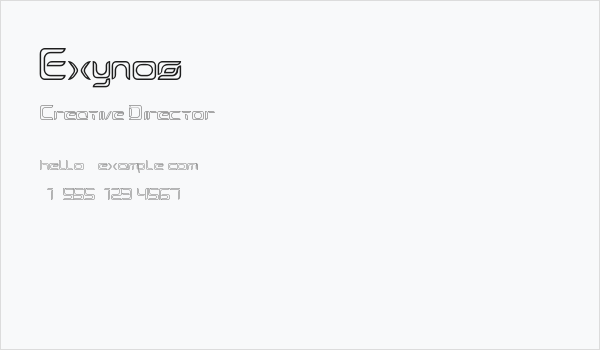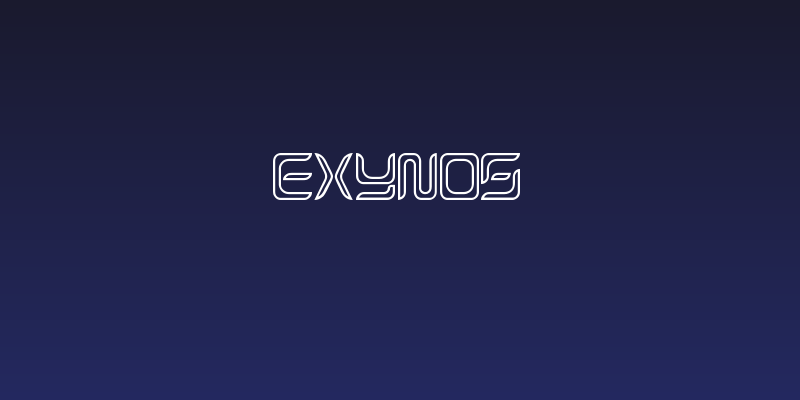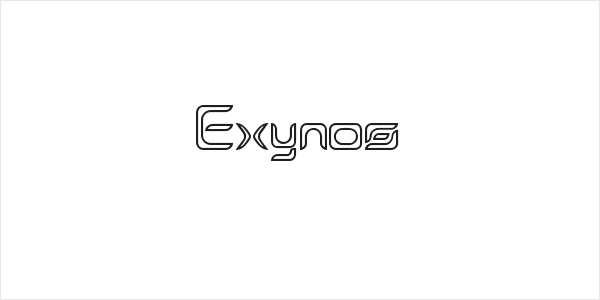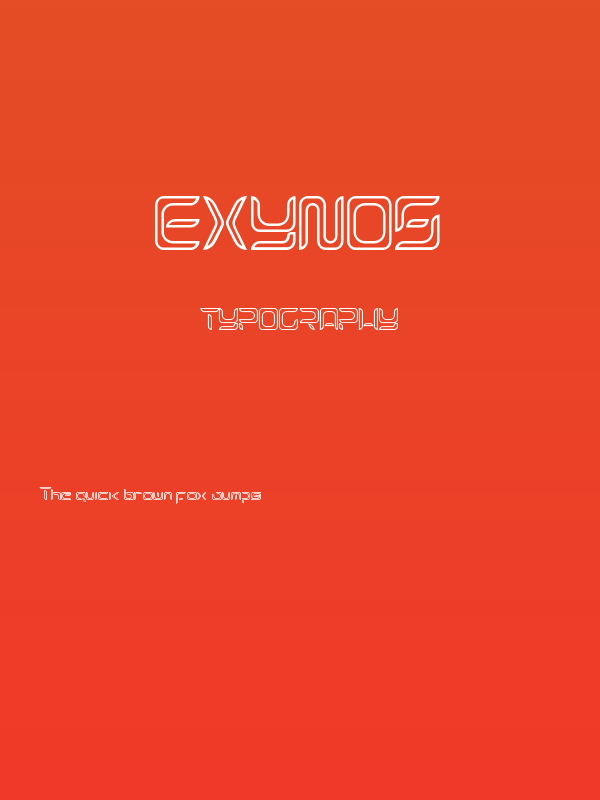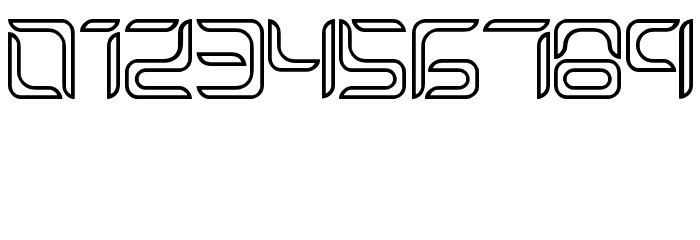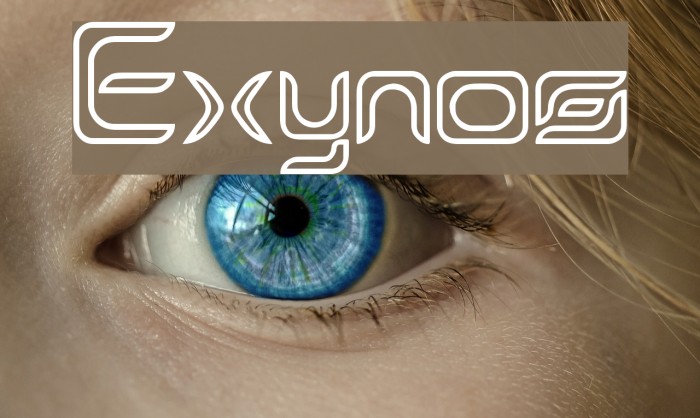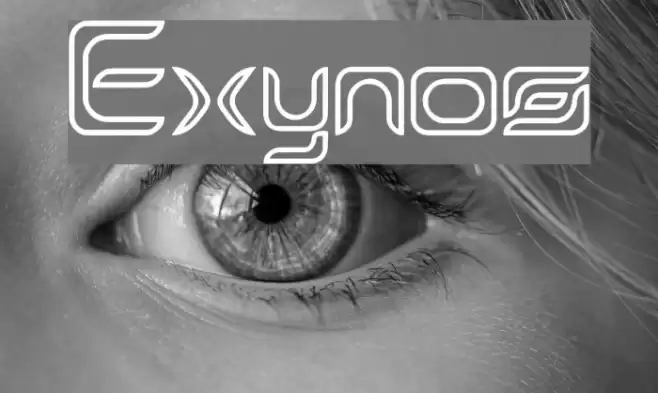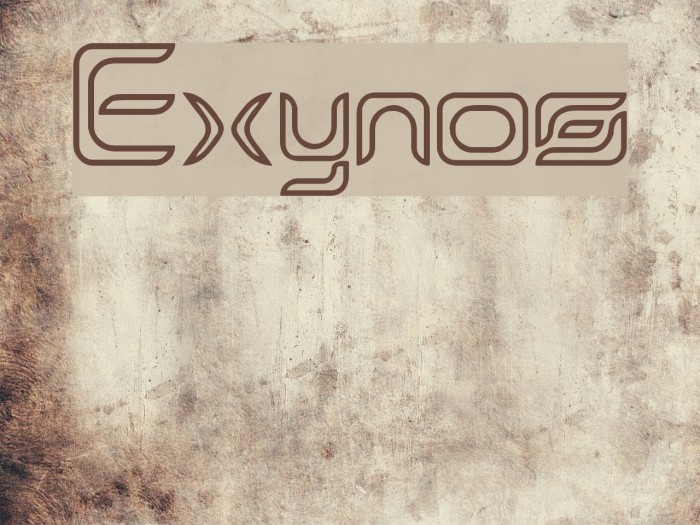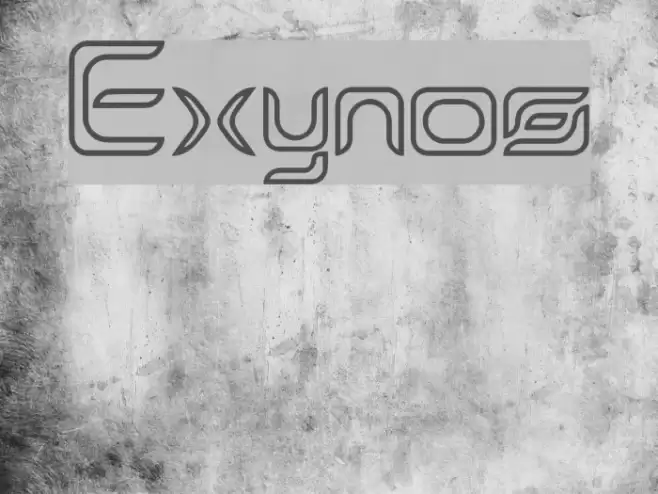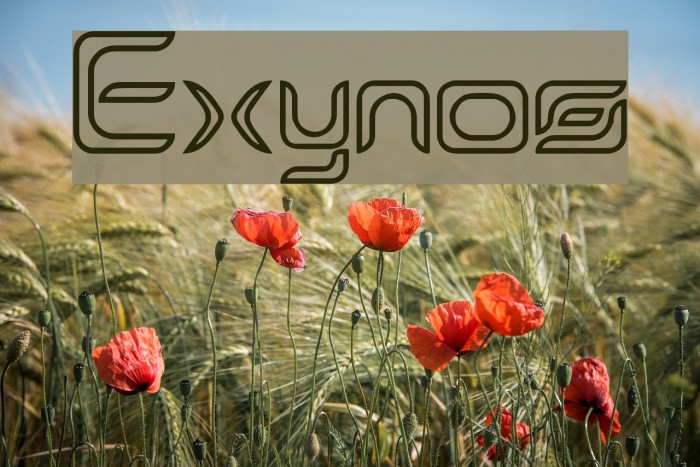
Exynos Font
Exynos Description
This font features a futuristic and geometric design, characterized by its bold, interconnected lines and angular shapes. The letters are formed with a double-line structure, creating a sense of depth and dimension. The overall appearance is sleek and modern, with a distinct sci-fi aesthetic. The uppercase and lowercase letters maintain a consistent style, while the numbers and special characters follow the same design principles, ensuring uniformity across all glyphs. This font is ideal for projects that require a cutting-edge and innovative look.
| Proposed Projects | Ideal for technology branding, sci-fi movie posters, video game titles, and futuristic event invitations. |